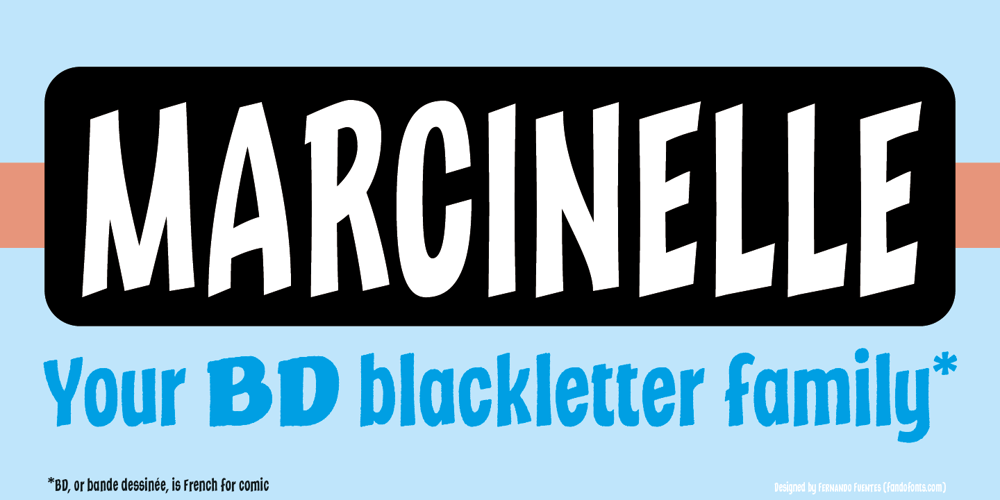
Marcinelle Font Family was designed by Fernando Fuentes and published by Fando Fonts. Marcinelle contains 36 styles and family package options. The origin of this family is the classic French-Belgian comics. The screams and onomatopoeia of these comics have so much personality that I needed to create a typeface family that would allow the designer to really replicate them.But this family has many more applications: packaging, logos, posters, signage, packaging, branding, etc. With its wide variety of glyphs you can make your sound effects, logos, etc. in most Latin languages.